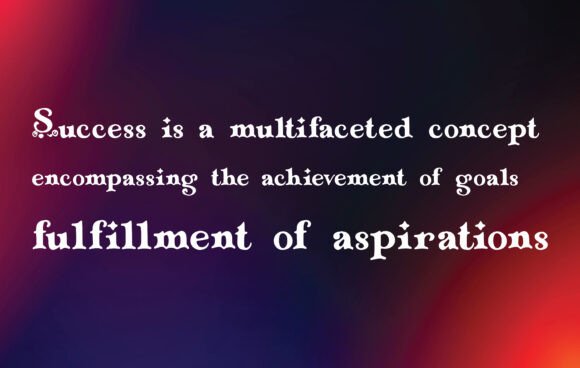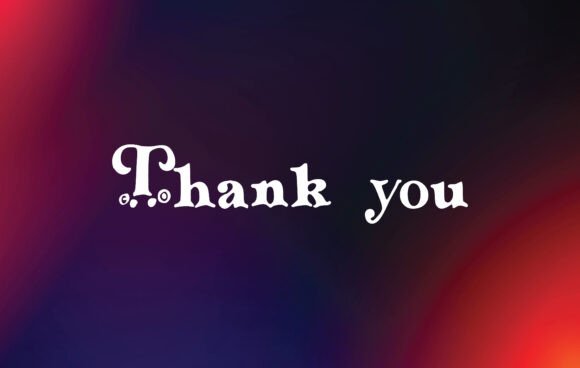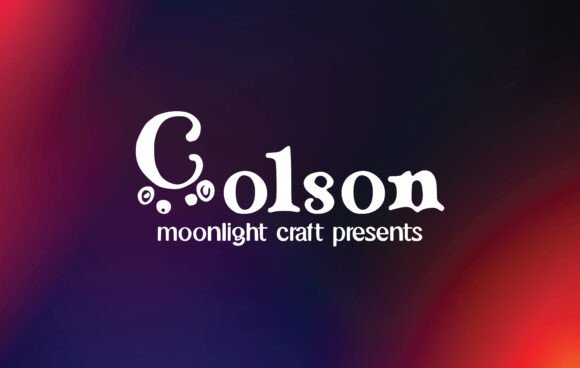
Discover the Elegance of Colson Font: Elevate Your Designs with a Lovely Serif Font
In the world of typography, fonts play a crucial role in conveying messages, expressing emotions, and creating a lasting impression. For designers, crafters, and creative enthusiasts, finding the right font can be a daunting task. However, if you’re looking for a font that exudes elegance, sophistication, and creativity, look no further than the Colson Font. This lovely and beautiful serif font has the potential to take your creative ideas to the highest level, making it an excellent choice for various design projects.
The Characteristics of Colson Font
Colson Font is a serif font that boasts a unique and captivating design. Its elegant strokes, precise lines, and classic feel make it an ideal choice for designs that require a touch of sophistication. The font’s serifs add a level of refinement, making it perfect for creating eye-catching logos, branding materials, and quotes. Whether you’re working on a personal project or a client’s design, Colson Font is sure to impress.
Why Choose Colson Font?
So, what makes Colson Font stand out from the rest? Here are a few reasons why designers and crafters love this font:
• Elegance and Sophistication: Colson Font exudes elegance and sophistication, making it perfect for designs that require a high level of refinement.
• Versatility: This font is versatile and can be used for a wide range of design projects, from logos and branding to quotes and creative writing.
• Easy to Read: The font’s clear and precise lines make it easy to read, even at small sizes.
• Unique and Captivating: Colson Font has a unique and captivating design that is sure to grab attention.
Using Colson Font for Design Projects
Colson Font is an excellent choice for various design projects, including:
• Logo Design: Create eye-catching logos that make a lasting impression with Colson Font.
• Branding: Use Colson Font to create a cohesive brand identity that exudes elegance and sophistication.
• Quotes and Typography: Add a touch of elegance to your quotes and typography designs with Colson Font.
• Packaging Design: Use Colson Font to create beautiful and eye-catching packaging designs.
Tips for Getting the Most Out of Colson Font
To get the most out of Colson Font, here are a few tips:
• Experiment with Font Sizes: Try out different font sizes to see how Colson Font looks at various sizes.
• Play with Colors: Experiment with different colors to see how they complement the font.
• Pair with Other Fonts: Try pairing Colson Font with other fonts to create a unique and interesting design.
In conclusion, Colson Font is a lovely and beautiful serif font that has the potential to take your creative ideas to the highest level. Its elegance, sophistication, and versatility make it an excellent choice for designers, crafters, and creative enthusiasts. Whether you’re working on a logo design, branding project, or typography design, Colson Font is sure to impress. So, why not give it a try and see how it can elevate your designs?